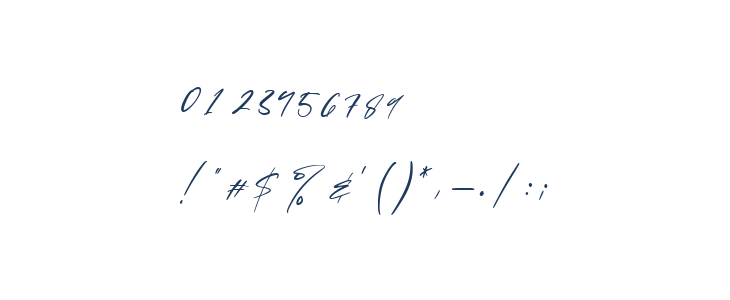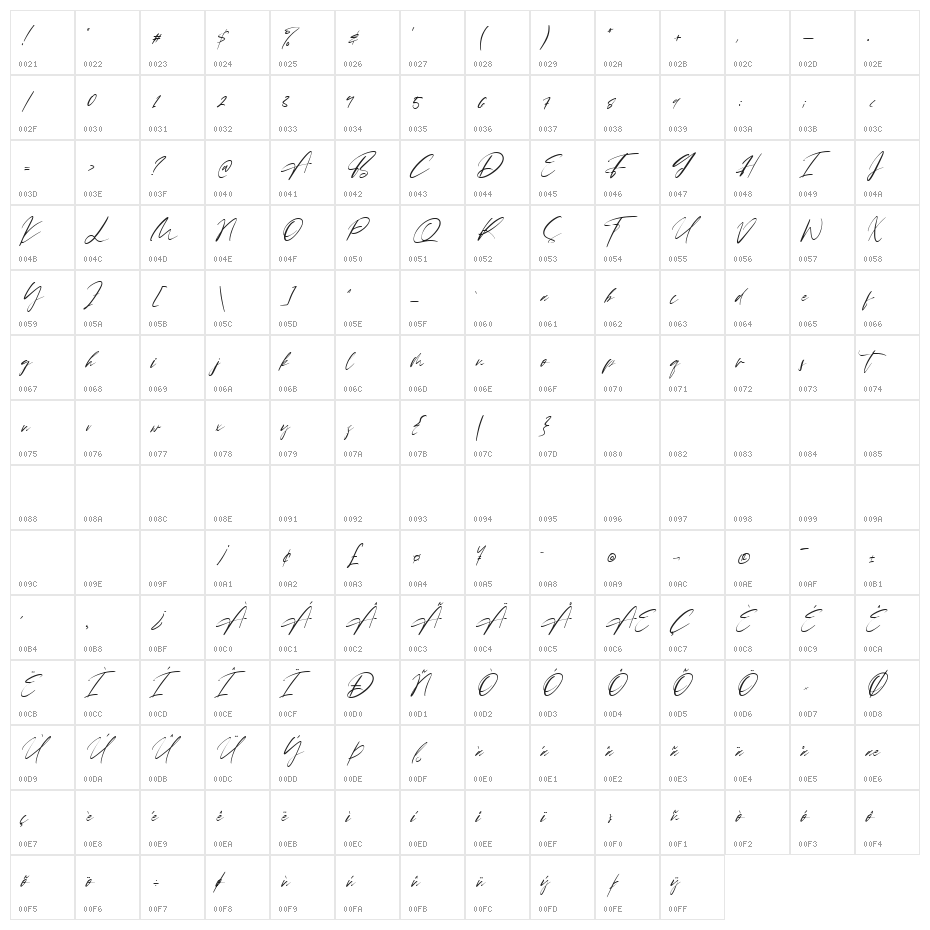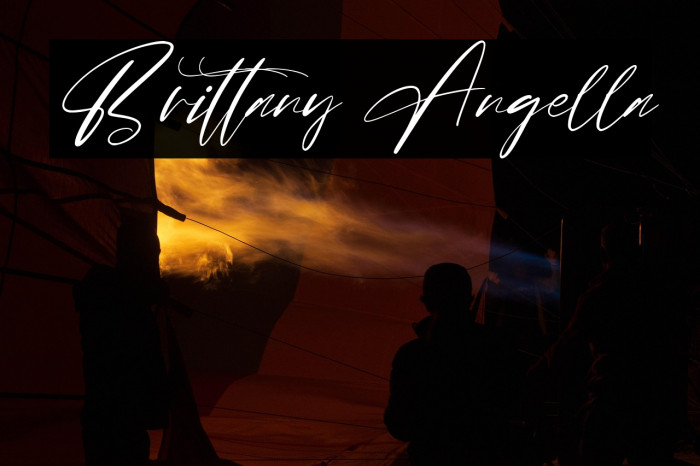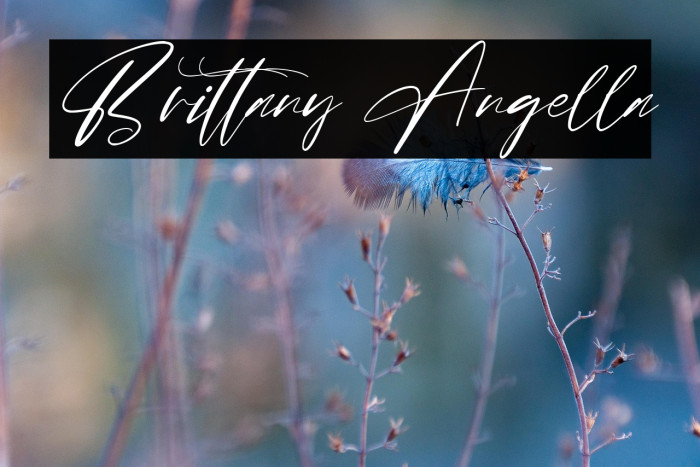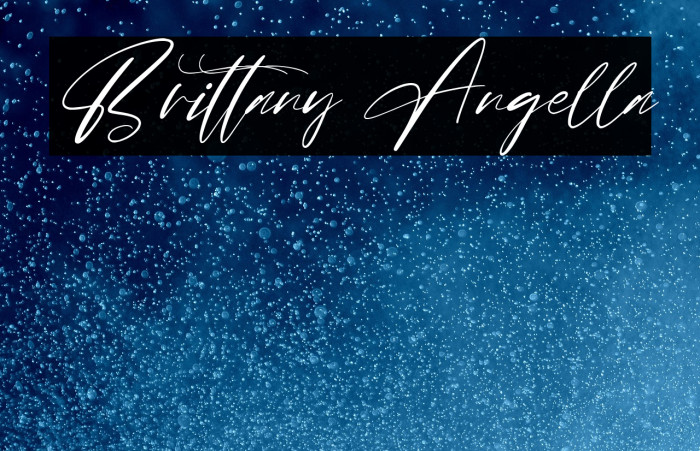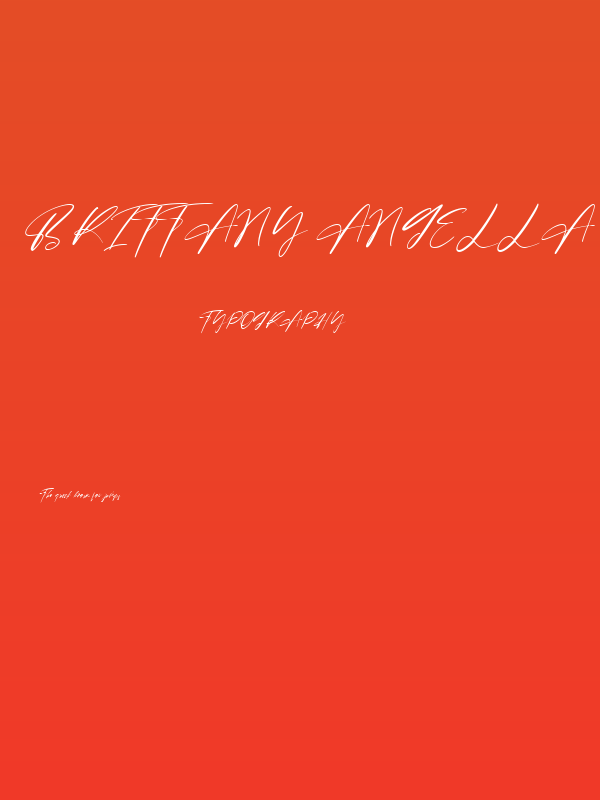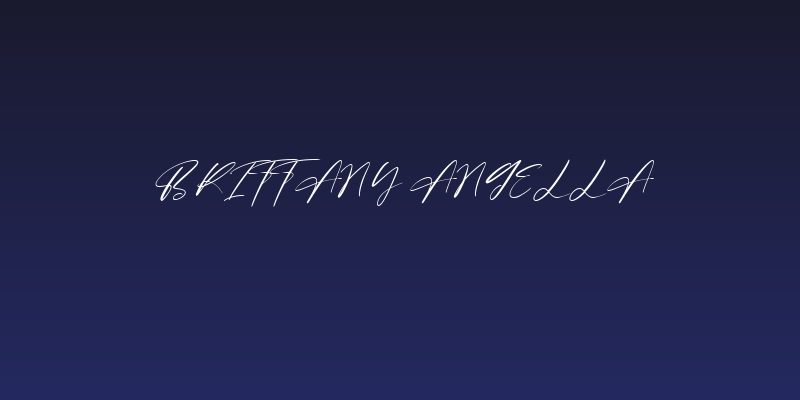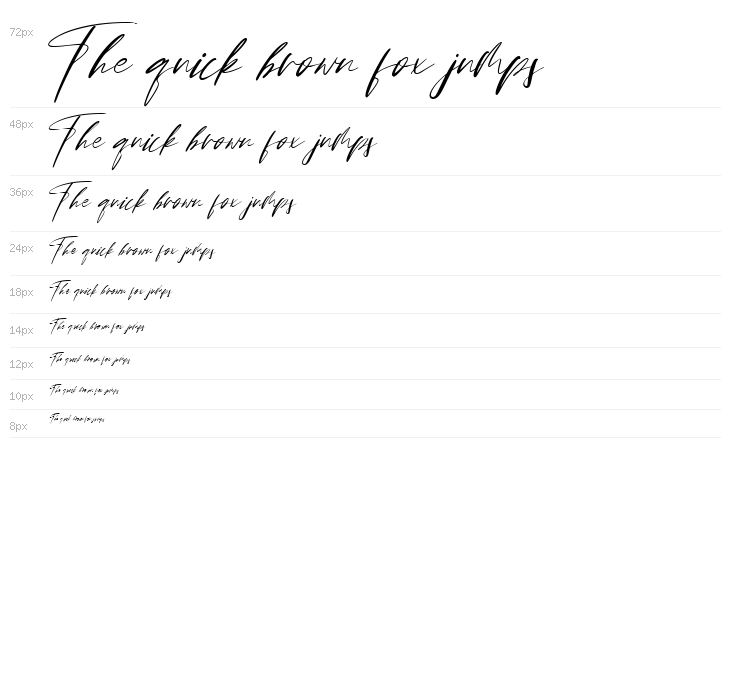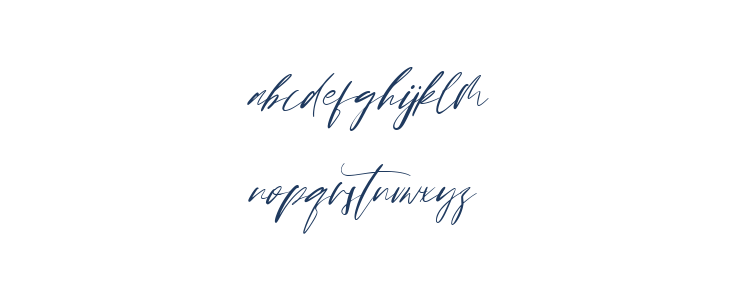
Brittany Angella Font
Brittany Angella Description
This font features an elegant and flowing script style, characterized by its graceful, sweeping curves and fluid strokes. The letters are interconnected, giving it a cohesive and harmonious appearance. The uppercase letters are particularly ornate, with extended flourishes that add a touch of sophistication. The lowercase letters maintain a consistent rhythm, enhancing readability while retaining an artistic flair. The numerals and special characters are designed to match the overall aesthetic, ensuring a seamless integration across different uses. This font exudes a sense of elegance and refinement, making it suitable for formal and creative applications.
| Overall Style | Elegant, Artistic |
| Proposed Projects | Ideal for wedding invitations, elegant branding, personal stationery, and artistic projects. |